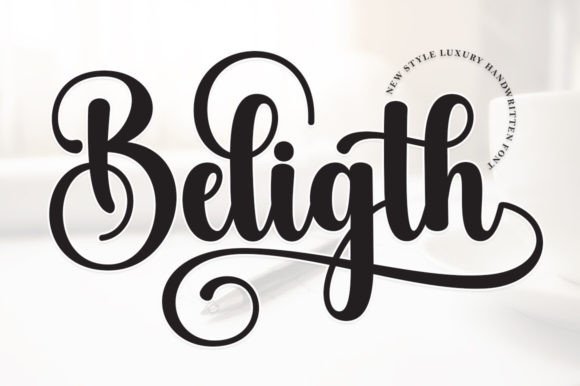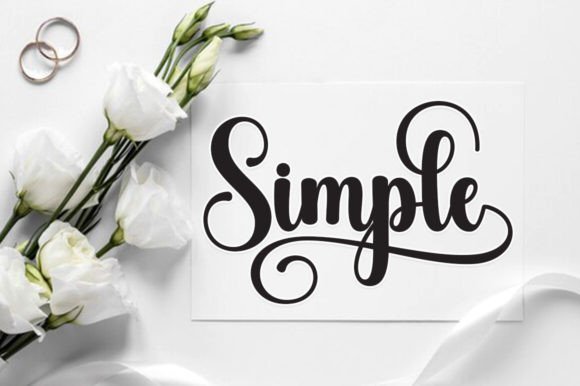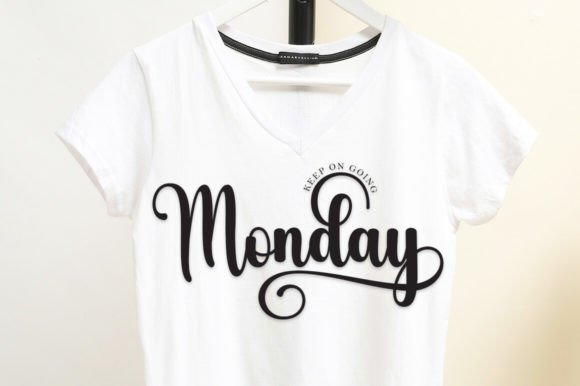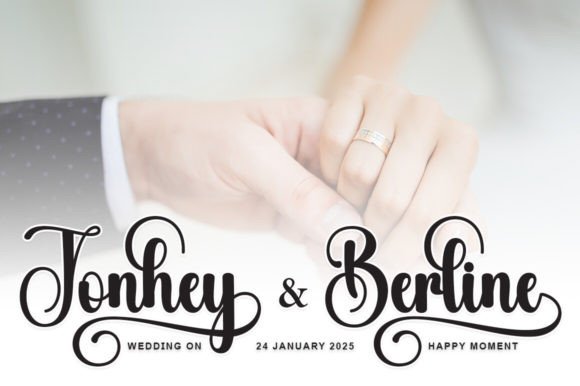
Beligth Font: Elegant Handwritten Font for Wedding Invitations
About the Beligth Font
Discover the charm of Beligth Font. This font is a perfect blend of modern aesthetics and classic appeal. Beligth is a happy handwritten font that will bring your design into a happy and fun mood. This font is perfect for branding, packaging, logotype, headline, wedding invitation, etc.
Beligth’s playful, hand-drawn quality makes it ideal for projects needing a friendly, approachable feel. It excels in headlines, short text blocks, and branding elements where its lighthearted nature can shine. Use it for packaging, invitations, and social media graphics, but avoid large blocks of body text or UI elements where readability suffers.
Consider pairing Beligth with a clean sans-serif like Montserrat for a balanced contrast, or a more geometric sans-serif for a modern feel. A classic serif like Garamond can add sophistication, while a script font could enhance its whimsical charm—but use scripts sparingly to maintain legibility.
Its informal, friendly character is well-suited to brands targeting a younger demographic or those emphasizing creativity and approachability. Avoid using it for projects requiring a formal or serious tone.
Beligth Font Usage Examples